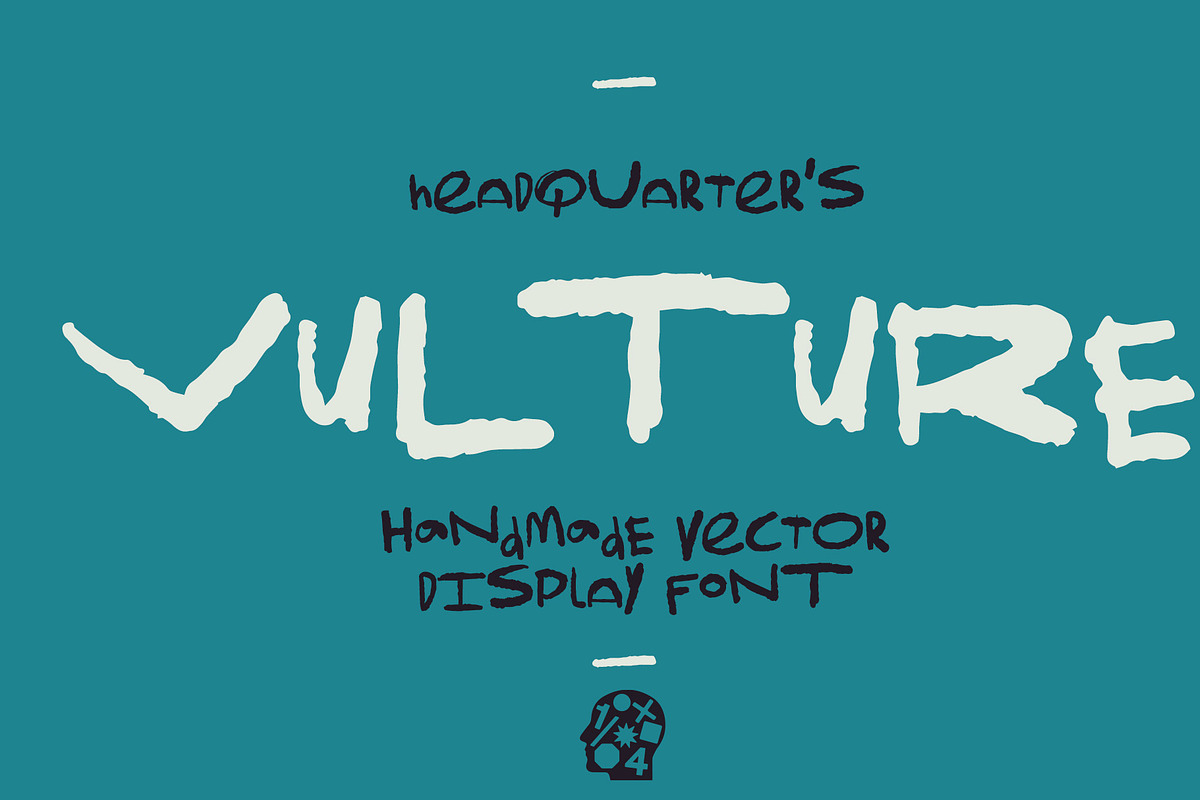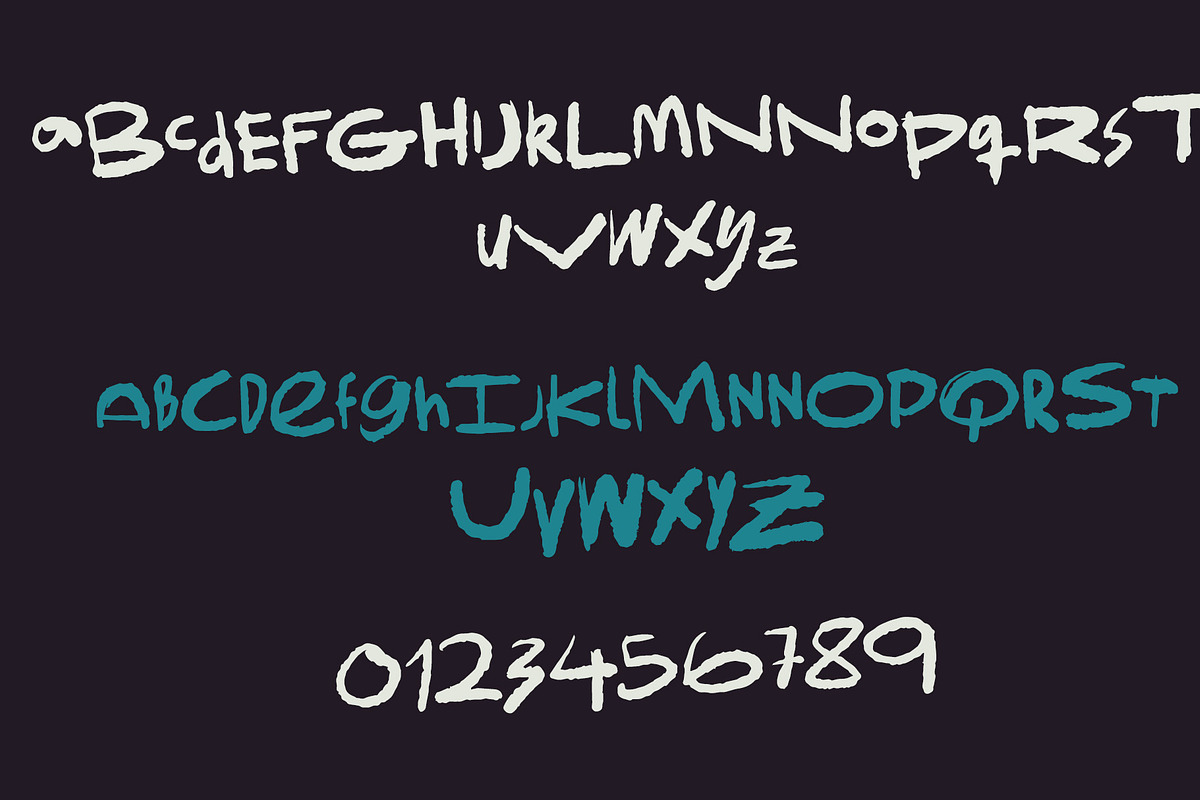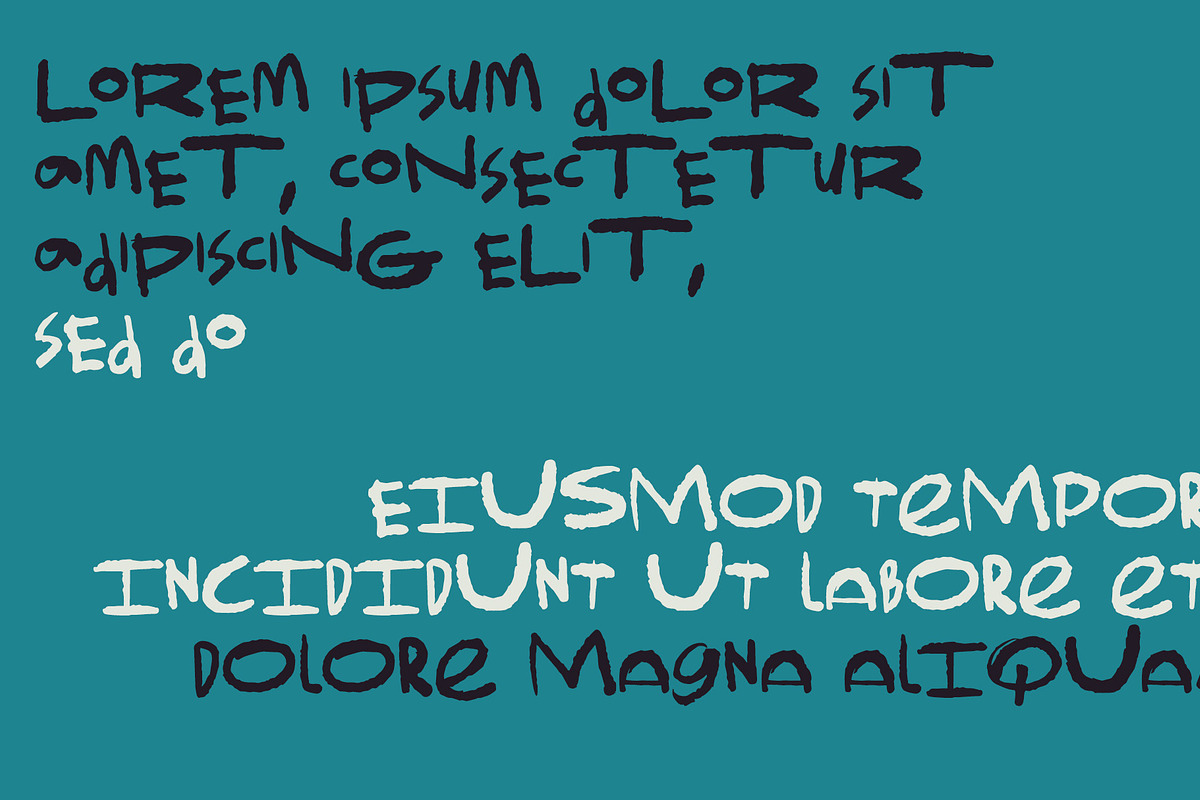
Vulture
Vulture is a distinctive font that exudes a sense of sharpness and predatory elegance. Inspired by the sleek and commanding presence of its namesake, this typeface is characterized by its edgy, angular lines and an assertive, no-nonsense attitude.
Perfect for industries and designs that demand attention, Vulture stands out in high-impact settings like album covers, movie posters, and aggressive marketing campaigns. Its bold, unapologetic style makes it a go-to choice for creators looking to make a strong, uncompromising statement with their typography.
Vulture is not just a font; it's a declaration of strength and daring in design.